NGS Restoration Type London
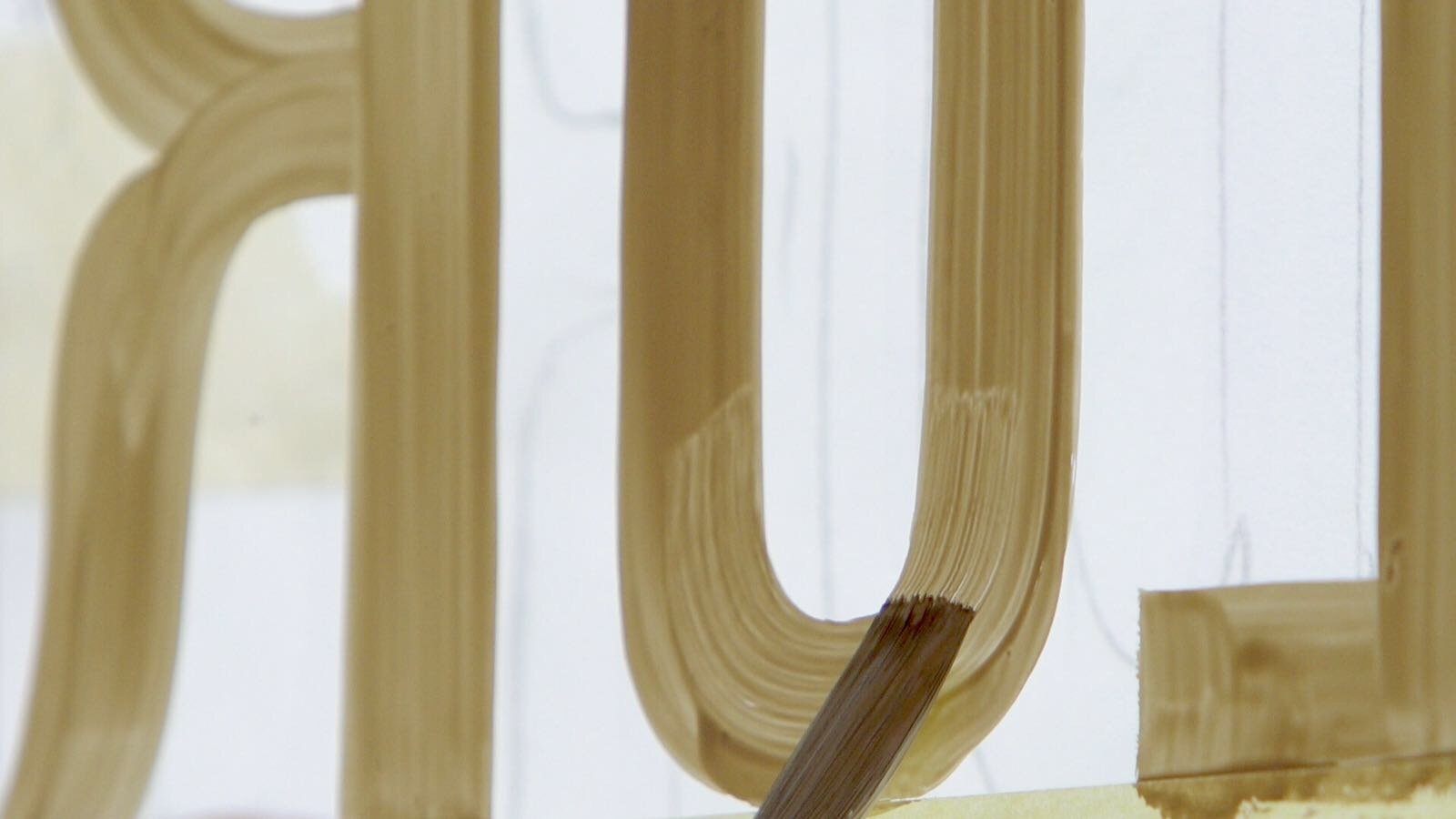
NGS Soho Fonts: By-Hand inspired, always.
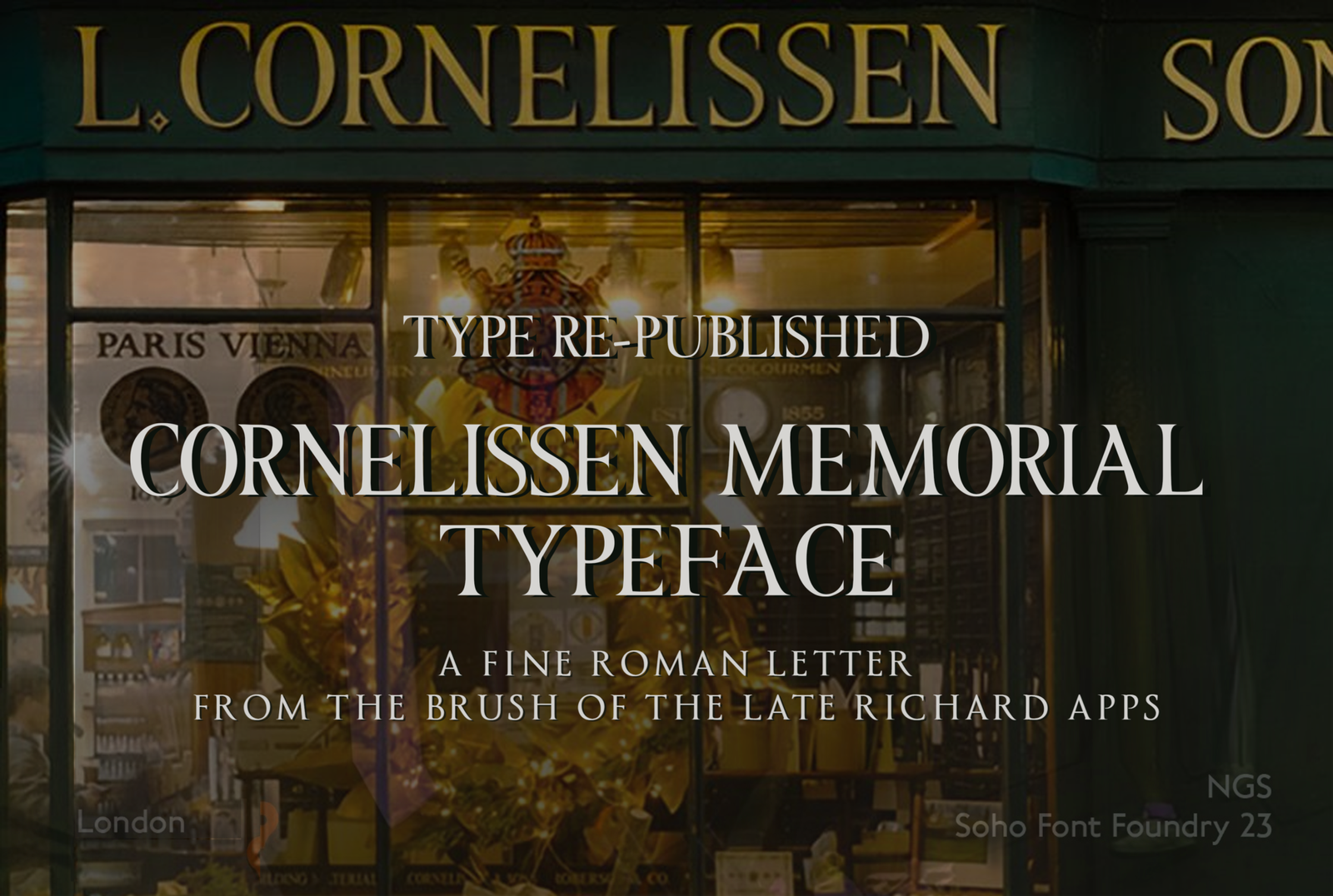
COMING OUT OF SOHO, FITZROVIA, KENSINGTON, BRICK LANE AND CHELSEA
‘New logo design concepts and fonts come mainly from working through a long list of restoration type ideas, and related client projects’.
Nick Garrett Restoration Type London, Custom Typefaces & Fonts.
Our ‘Restoration London Type Series’ is continually growing.
INTRODUCING
THE
EDWARD JOHNSTON RESTORED TYPE SERIES
Coming originally from the hand of Scottish calligrapher and design lecturer Edward Johnston, this restored series of London Underground fonts trace his original and fascinating ‘inspirational journey’ in 1905, from Edinburgh to Rome to London, and how they became today’s station signage around all London.
‘Above the Line Design’ means the very highest quality of Lettering manufacture.
THE NGS JOHNSTON TYPE FAMILY
NGS Johnston Highbury 107
NGS Johnston Edinburgh
NGS Johnston Aldgate East
NGS Johnston Baker St.
NGS Johnston Madrid
Absolutely Typographically correct.
‘Baker Street’, one of our rapidly expanding, hand made ‘Restoration Type’ Series painted by Seraina.
Above:
Seraina Painting our restoration series type face ‘Johnston Highbury’ | NGS Creative Design Studio Precision Signwriting.
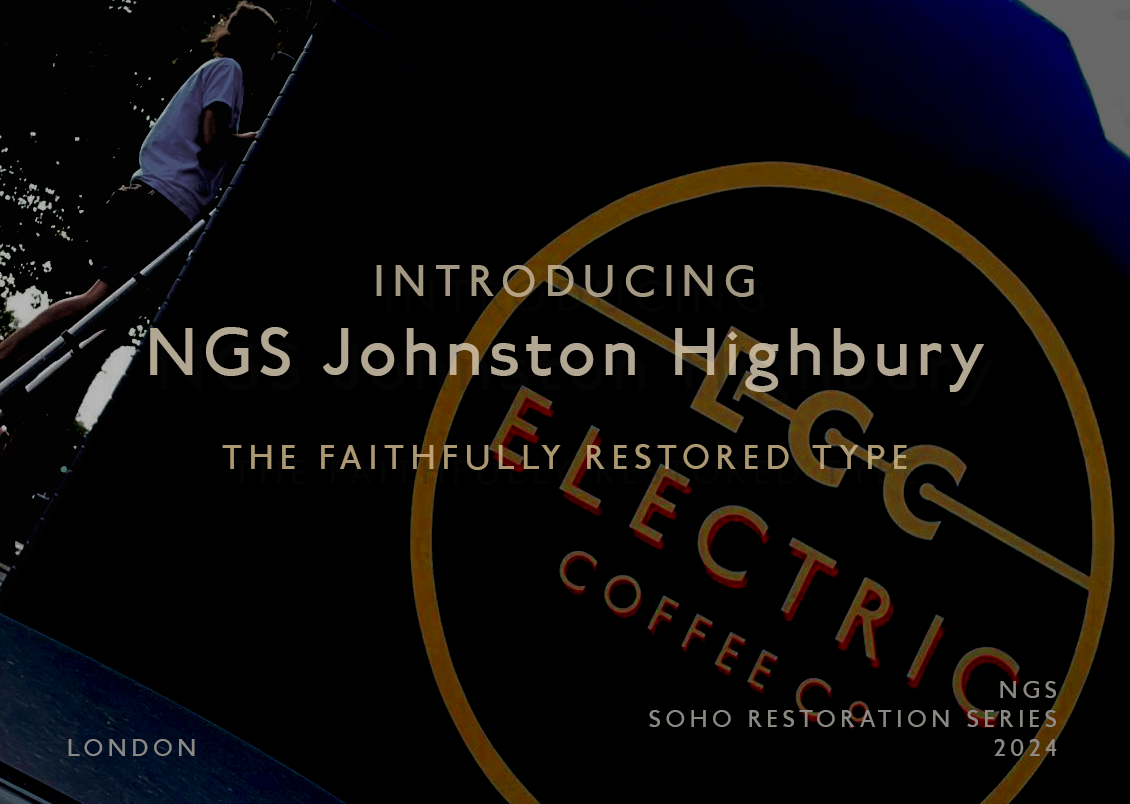
NGS ‘Jaguar Bold’
Introducing a confident, timeless Vintage ‘Spur Serif’ Typeface.
All ‘Custom’ made. Precision, wide Roman letter suitable for all retail and venue brand design ID.
INTRODUCING
NGS BRICK LANE BOLD
Inspired by 12X3 and Repton Boxing Club.
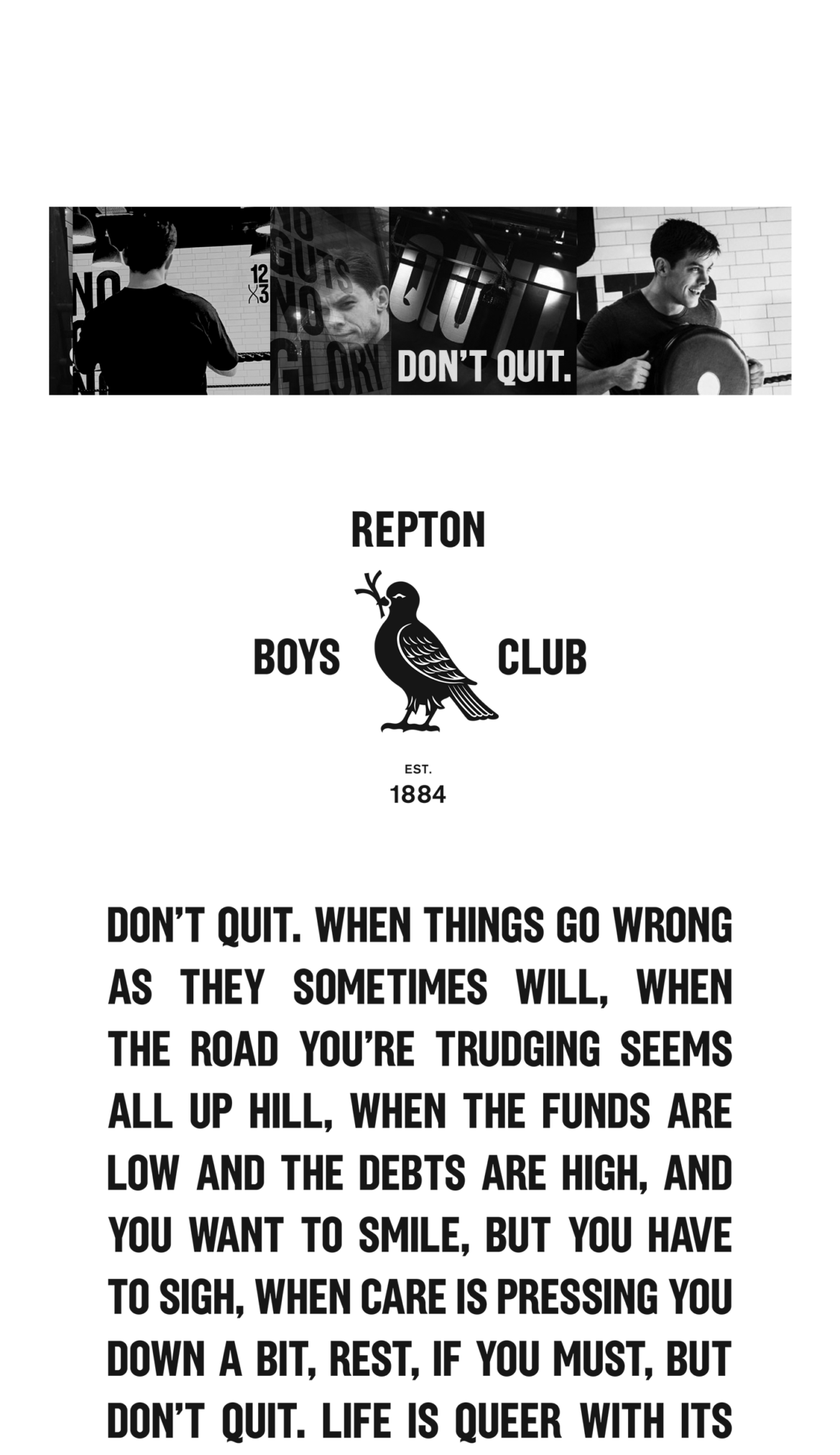
RICHARD APPS A LONDON SIGN PAINTING LEGEND
A Commemorative Typeface completed for 2024.
I had a call from Richard out of the blue back in 2021 and he was just about to retire from active projects. I had known Richard from way back in the eighties and was amazed at his beautiful Roman serifed lettering from the first moment I saw it with my original teacher Andy Whitmore, who knew him well.
Here is an extract from my ‘Memoirs of a London Street Writer’ which I hope to have completed for publication by mid 2025:
Chapter 17
Meeting my master: Sign Writer Andrew Whitmore.
So, working with Andy was vilifying my ability to attend tasks, listen to instructions, gain knowledge, and develop that knowledge in ways that became useful to new and varied projects and contexts. In other words, we experienced growth in a practical context, and in an inspirational one. I learnt and we built success.
So these were really good days. We painted with celebrated J. T. Keeps sign writing enamel. We finished at about 10:00 every night, having chopped sign panels by hand, with our 31 inch Diston panel saws, painted them with huge Hamilton ‘Perfection’ brushes, sandpapered with 320/400 wet ‘n dry until they were flat as Welsh slate – coated them like mirrors and gone home tired but ecstatic.
One of the great loves of our life was Helvetica. Like I mentioned before it was an absolute obsession. We would discuss and pull apart the structure of Helvetica and then do it all again. We were often visited by sign writer by the name of Richard apps who would give Andy work to do that was studio based and small scale. I was 21 and a bit cheeky when it came to Richard. We would both of us Andy and I tease him a lot and yet always bring a hot cup of tea and share a bit of downtime in the studio.
Richard was a bit of a hippie and we didn’t really take him that seriously.
That was until we went out one day to check out one of his jobs that he mentioned – this one he was evidently very proud of. So we both arrived at a small mews in Belgravia, with a beautiful title painted on the entrance arch in the most astonishingly beautiful Roman letter, which had us absolutely Gob smacked.
‘’Did he do this?’’ I asked Andy, who was by now shuffling from foot to foot…. nibbling his roll up.
‘’Not half bad eh Nicko…’’ and duly set off to the buggy with a strange sheepish silence descending as we drove back to my place.
‘’See you tomorrow Nicko…’’
So the next time Richard came into our studio the kettle went on, there was no piss taking and the first thing I said to Richard was.
‘’That’s a fuckin’ lovely bit of sign writing Richard…’’ Andy shuffled about his desk.
I commented.
‘’Yeah it looked like it had been there for years and weren’t painted at all… embossed… so ‘cold’ (pure) and straight. It just looked like they’ve been carved in the surface there.